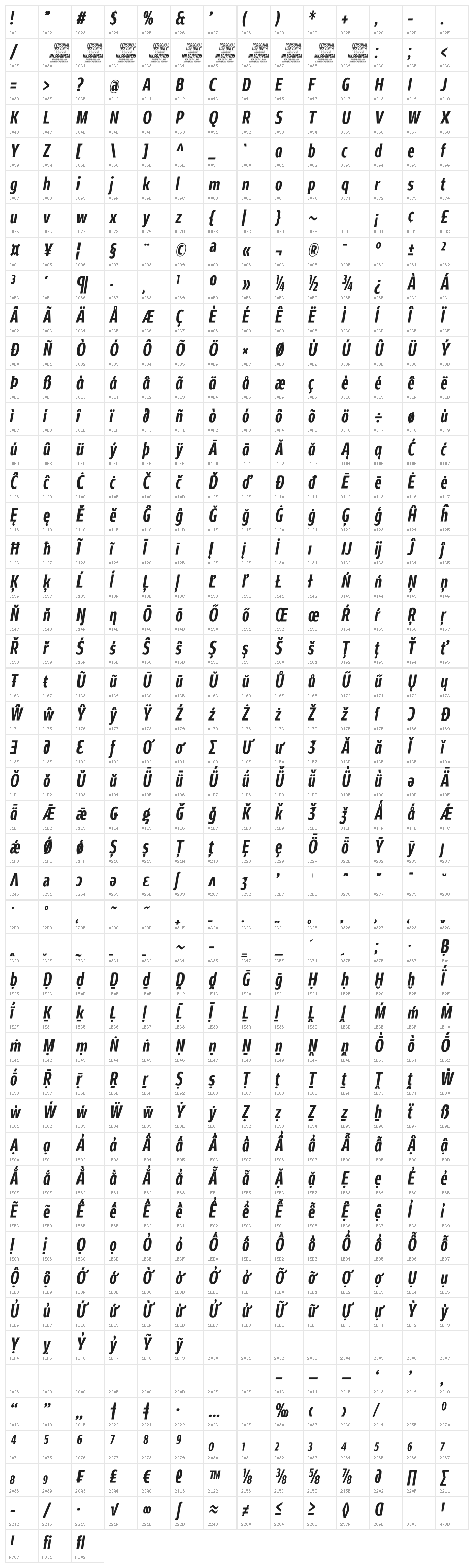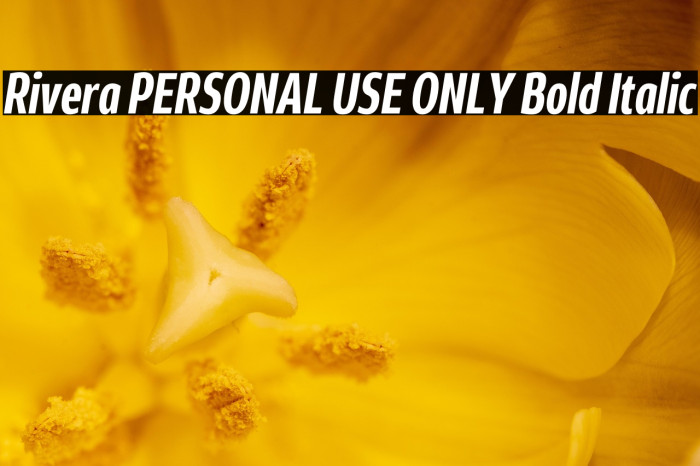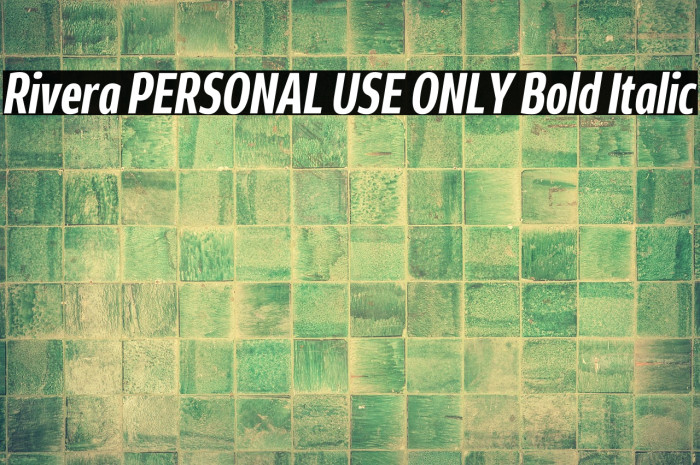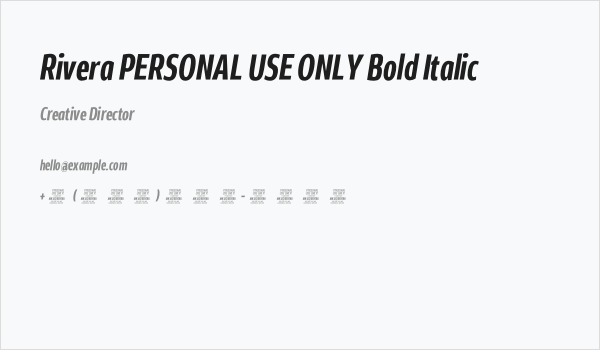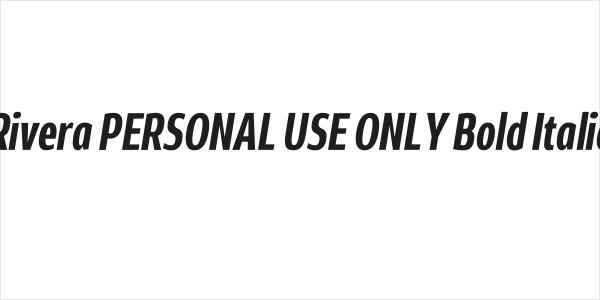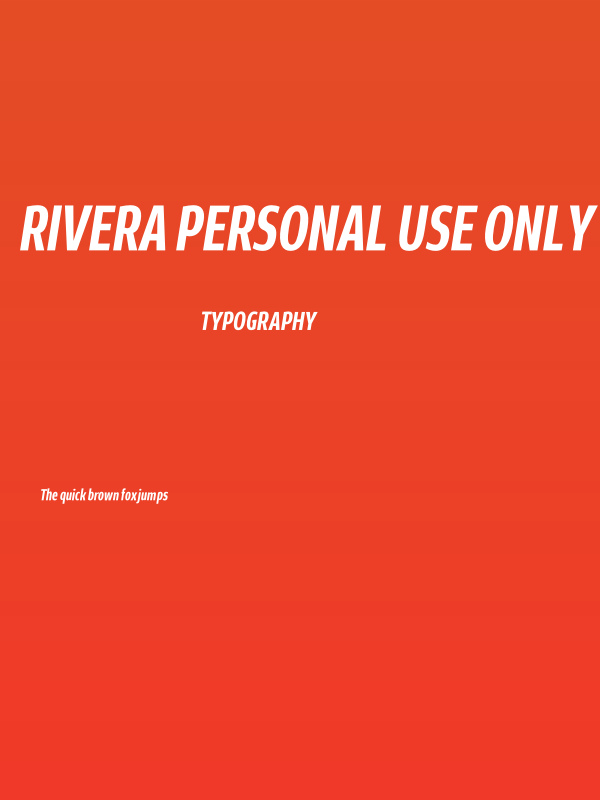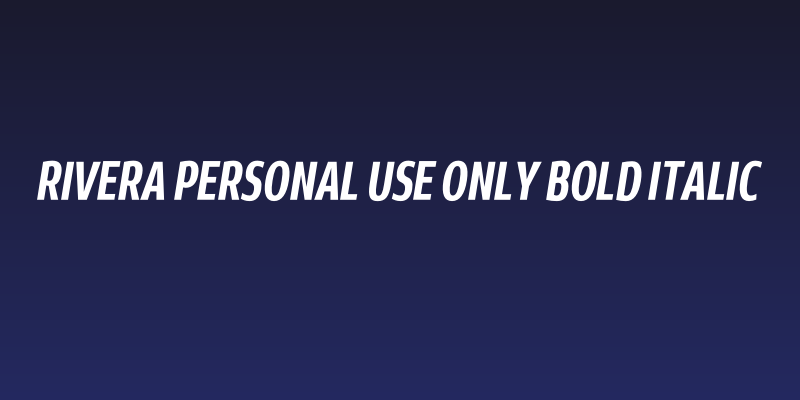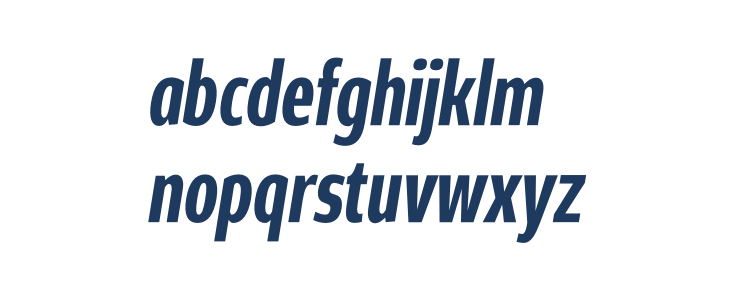
Rivera PERSONAL USE ONLY Bold Italic Font
Rivera PERSONAL USE ONLY Bold Italic Description
This font exhibits a bold and italic style, characterized by its strong presence and dynamic slant. The uppercase and lowercase letters are designed with a consistent thickness, providing a uniform appearance across the board. The characters are slightly condensed, enhancing the boldness and making it suitable for impactful designs. The special characters maintain the same bold and italicized style, ensuring consistency throughout. This font's modern aesthetic is ideal for projects that require a strong and assertive visual impact.
Proposed ProjectsIdeal for branding, headlines, posters, and any design requiring a bold statement.